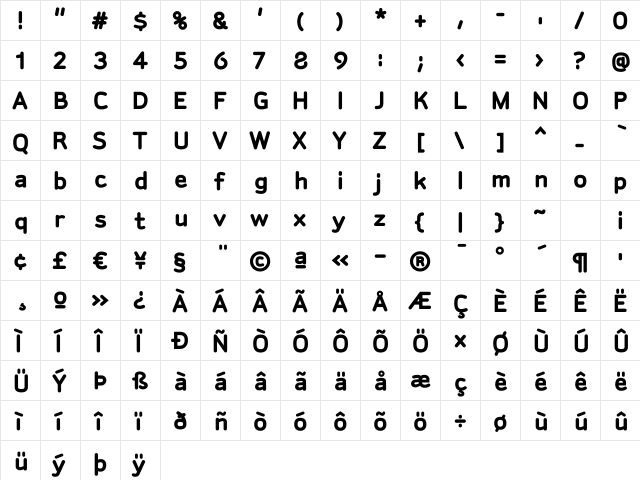
SylviaBold Regular
Design Context for SylviaBold Typeface
SylviaBold offers clean, dependable letterforms without strong stylistic allegiance, making it a practical choice for designers who need flexibility. The heavy weight commands attention and anchors typographic hierarchies.